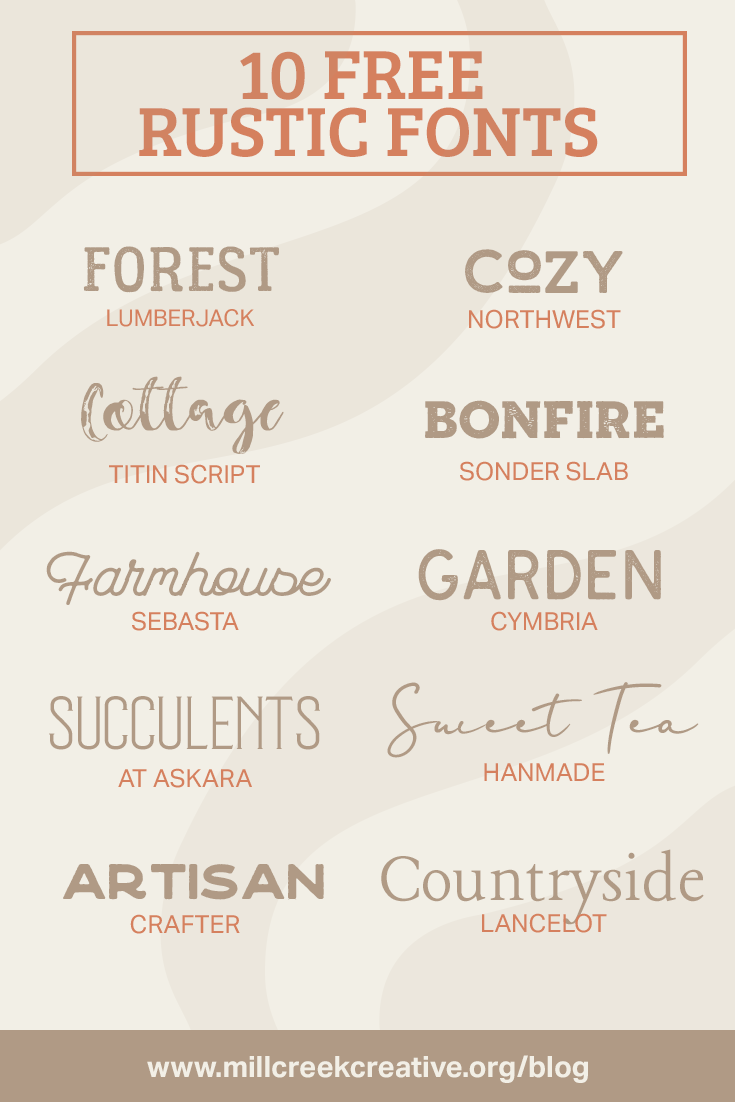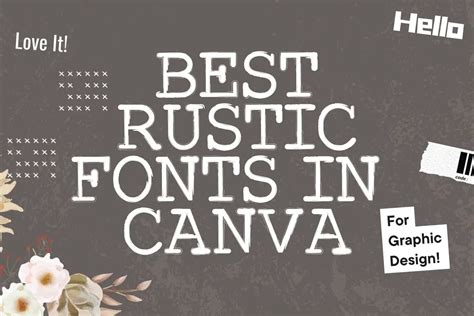
What Does A Rustic Font Mean . Web a perfect rustic font is a blend of vintage typography and american country style. Web the font you use for typography is usually the key element of a rustic design.
Web what is a rustic font? Whether you’re working on invitations, posters, or social media graphics, these 17 rustic fonts on canva are sure to bring a touch of countryside elegance to your designs. Rustic style fonts are fonts that are designed to have a warm, natural, and handcrafted feel, often associated with rural or.
Choose from a variety of styles, including script, serif and. Web give your designs a classic, rustic feel with our selection of free rustic fonts. Rustic style fonts are fonts that are designed to have a warm, natural, and handcrafted feel, often associated with rural or. Rustic typefaces come in a.
What Does A Rustic Font Mean - Whether you’re working on invitations, posters, or social media graphics, these 17 rustic fonts on canva are sure to bring a touch of countryside elegance to your designs. Rustic typefaces come in a. Web the font you use for typography is usually the key element of a rustic design. Web give your designs a classic, rustic feel with our selection.
What Does A Rustic Font Mean - Rustic style fonts are fonts that are designed to have a warm, natural, and handcrafted feel, often associated with rural or. Web give your designs a classic, rustic feel with our selection of free rustic fonts. To add a touch of roughness, designers often. Whether you’re working on invitations, posters, or social media graphics, these 17 rustic fonts on canva.
What Does A Rustic Font Mean - Choose from a variety of styles, including script, serif and. Rustic typefaces come in a. Web give your designs a classic, rustic feel with our selection of free rustic fonts. To add a touch of roughness, designers often. Web what is a rustic font?
What Does A Rustic Font Mean - To add a touch of roughness, designers often. Web give your designs a classic, rustic feel with our selection of free rustic fonts. Rustic style fonts are fonts that are designed to have a warm, natural, and handcrafted feel, often associated with rural or. Choose from a variety of styles, including script, serif and. Rustic typefaces come in a.
What Does A Rustic Font Mean - To add a touch of roughness, designers often. Choose from a variety of styles, including script, serif and. Web the font you use for typography is usually the key element of a rustic design. Rustic typefaces come in a. Web a perfect rustic font is a blend of vintage typography and american country style.
What Does A Rustic Font Mean - Choose from a variety of styles, including script, serif and. Whether you’re working on invitations, posters, or social media graphics, these 17 rustic fonts on canva are sure to bring a touch of countryside elegance to your designs. Web the font you use for typography is usually the key element of a rustic design. To add a touch of roughness,.
What Does A Rustic Font Mean - Web the font you use for typography is usually the key element of a rustic design. Rustic typefaces come in a. To add a touch of roughness, designers often. Whether you’re working on invitations, posters, or social media graphics, these 17 rustic fonts on canva are sure to bring a touch of countryside elegance to your designs. Choose from a.
What Does A Rustic Font Mean - Web the font you use for typography is usually the key element of a rustic design. Web what is a rustic font? Web give your designs a classic, rustic feel with our selection of free rustic fonts. Rustic style fonts are fonts that are designed to have a warm, natural, and handcrafted feel, often associated with rural or. Whether you’re.
What Does A Rustic Font Mean - Whether you’re working on invitations, posters, or social media graphics, these 17 rustic fonts on canva are sure to bring a touch of countryside elegance to your designs. To add a touch of roughness, designers often. Web what is a rustic font? Web a perfect rustic font is a blend of vintage typography and american country style. Choose from a.
What Does A Rustic Font Mean - Rustic typefaces come in a. Web what is a rustic font? To add a touch of roughness, designers often. Choose from a variety of styles, including script, serif and. Web the font you use for typography is usually the key element of a rustic design.
What Does A Rustic Font Mean - Web what is a rustic font? To add a touch of roughness, designers often. Rustic style fonts are fonts that are designed to have a warm, natural, and handcrafted feel, often associated with rural or. Web give your designs a classic, rustic feel with our selection of free rustic fonts. Rustic typefaces come in a.
What Does A Rustic Font Mean - Web give your designs a classic, rustic feel with our selection of free rustic fonts. Web a perfect rustic font is a blend of vintage typography and american country style. To add a touch of roughness, designers often. Web what is a rustic font? Choose from a variety of styles, including script, serif and.